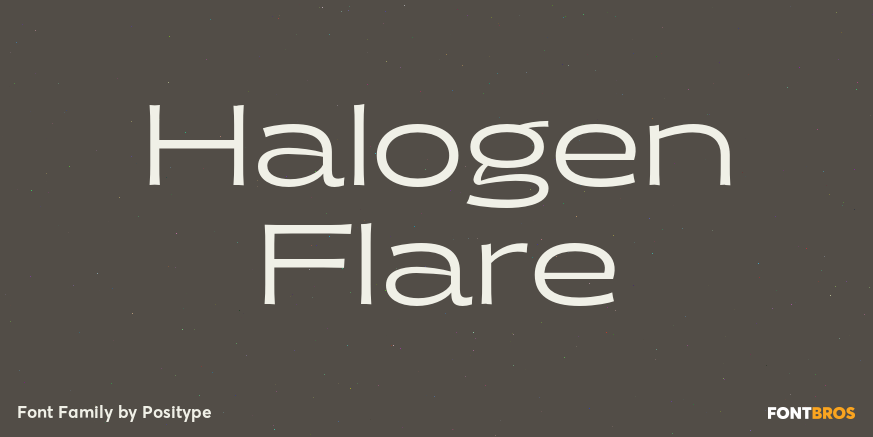
Halogen Flare
About Halogen Flare
When I released Halogen, I asked ?Who doesn\’t want or need an expansive contemporary extended sans that has a sense of style and swagger? what if it had a lowercase, small caps and various numeral options? how could you say no?? Go, click on the Halogen…